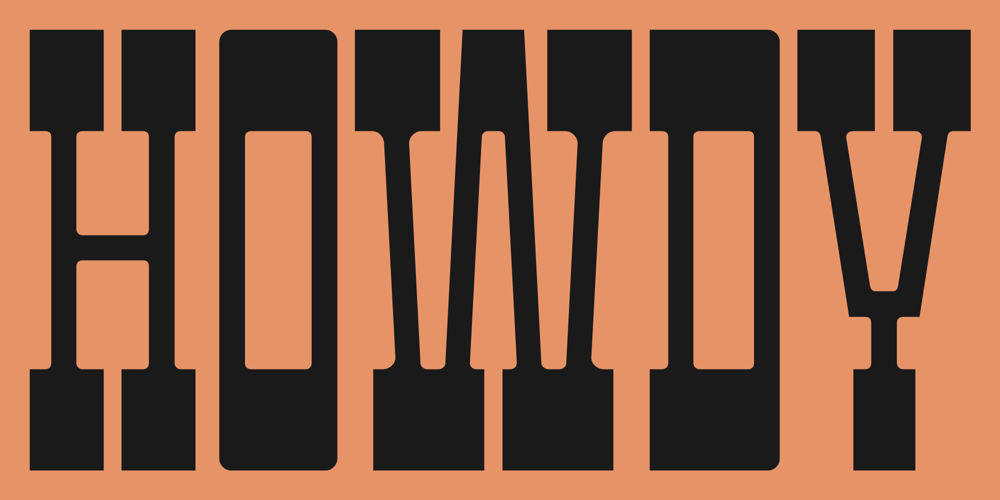
Howdy
Howdy font
Howdy Font Family was designed by Ben Buysse and published by Ben Buysse. Howdy contains 5 styles and family package options. Howdy is a modern French Clarendon revival typeface inspired by late 19th-century woodblock type and sign painting. Its ties to the American West evoke a distinctive western and retro flair. It was designed with flexibility in mind. Intended for use as a display type, its reverse contrast forms make an impact from tall or wide headlines and anything in between.